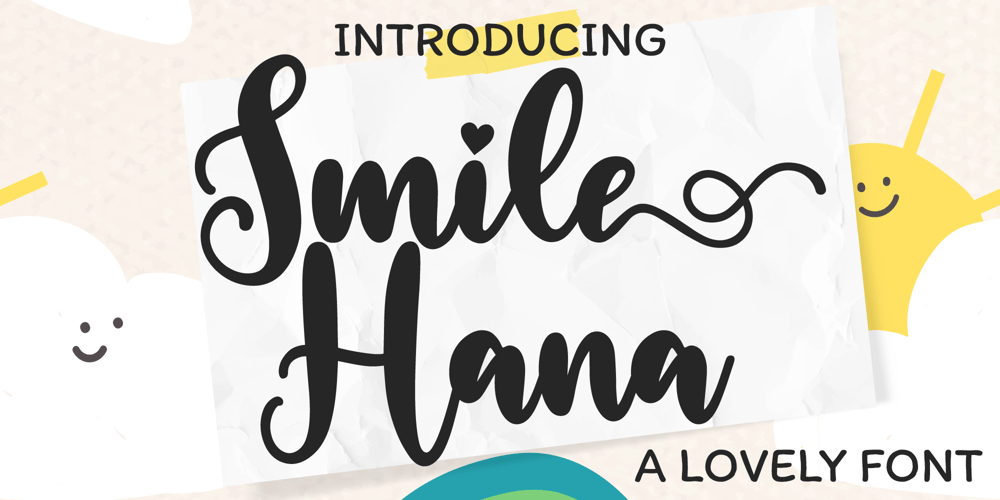
Smile Hana Font Family was designed by Dian Haniffan Hadi and published by Beary. Smile Hana contains 1 styles and family package options. Smile Hana is a romantic and sweet calligraphy typeface with characters that dance along the baseline. It has a casual, yet elegant touch. This font is PUA encoded which means you can access all of the glyphs and swashes with ease!